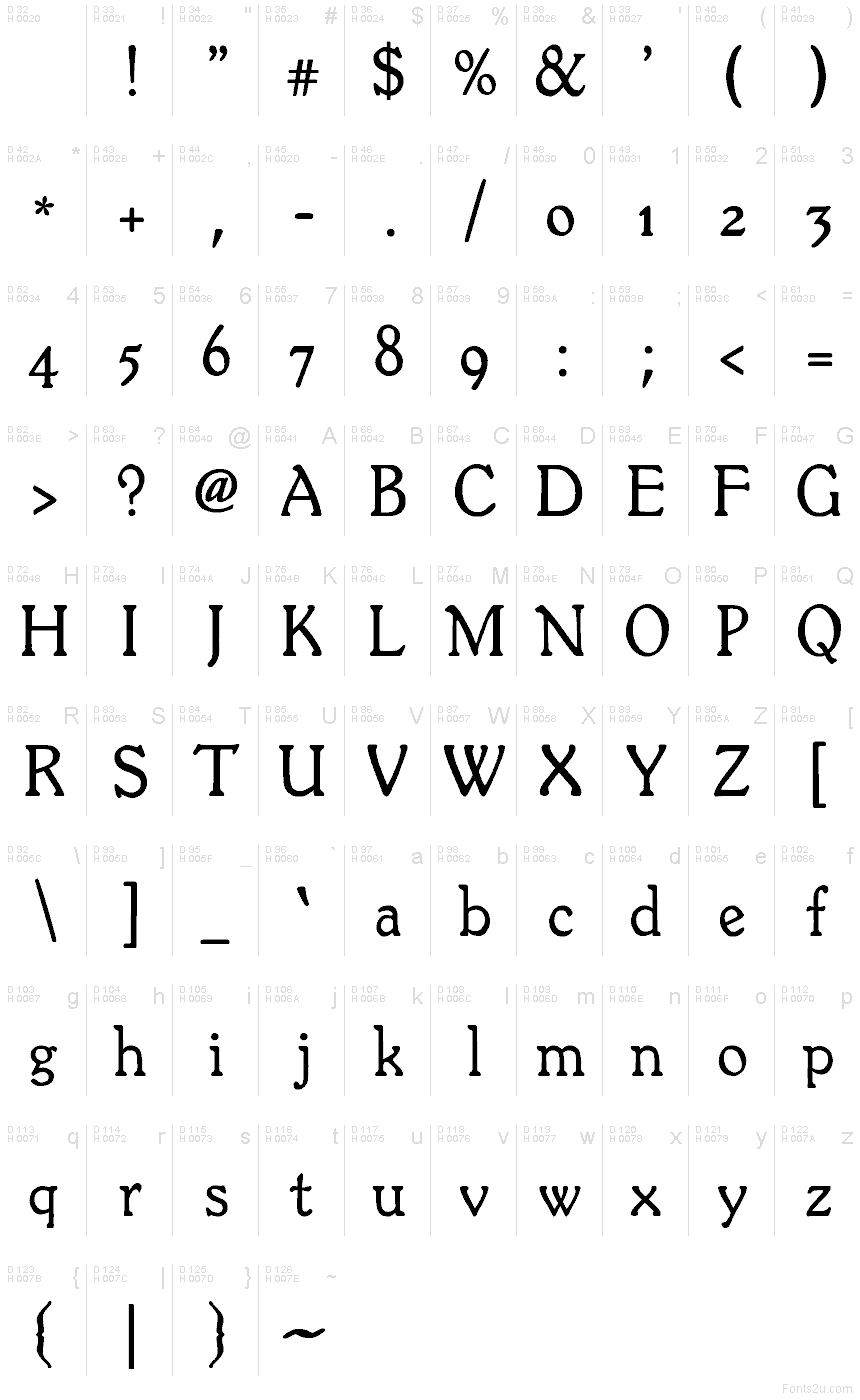
LDR Studia Lite
LDR Studia Lite font by Luigi Della Rosa is a free old-style serif typeface. Part of the LDR Studia family, it solves a familiar gap: you want scholarly credibility without the starch. Its wedge-like serifs, slightly flared strokes, and chiseled curves read cleanly while adding a gentle bite, giving headlines and pull quotes a cultured, inky texture. The rhythm stays compact and steady, so your layout feels composed rather than fussy.
Using LDR Studia Lite, you can bring quiet authority to book covers, literary magazines, museum posters, heritage branding, menus, boutique packaging, and thoughtful blogs. This free font shines when you need both poise and personality in the same line. Pair it with a neutral grotesk for body copy, or give it a touch of breathing room to let those sculpted details glow.